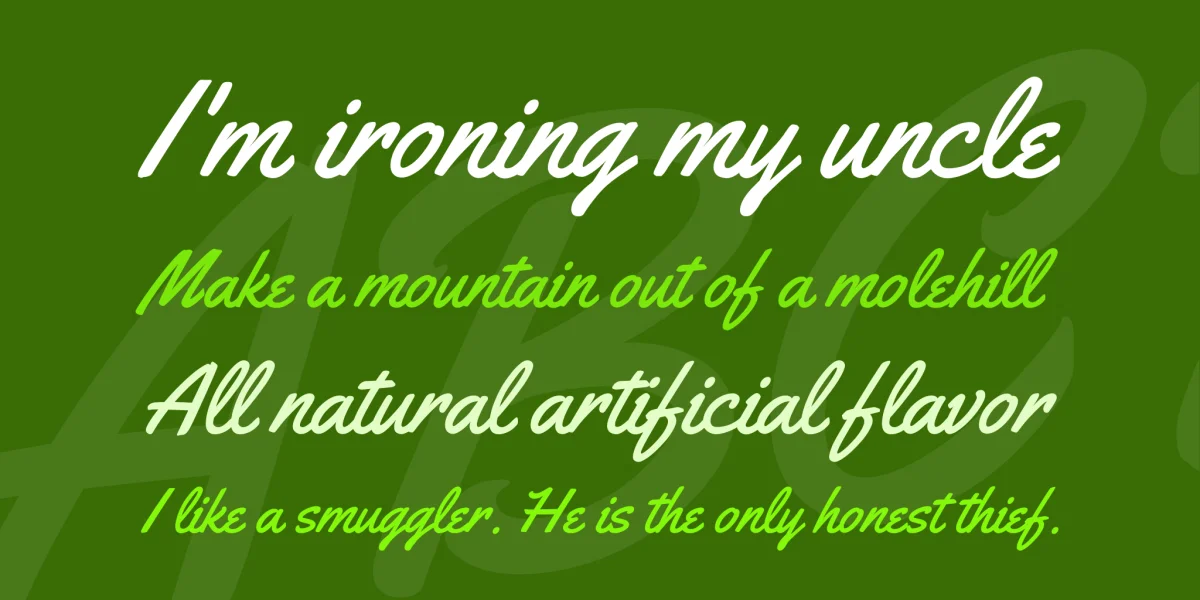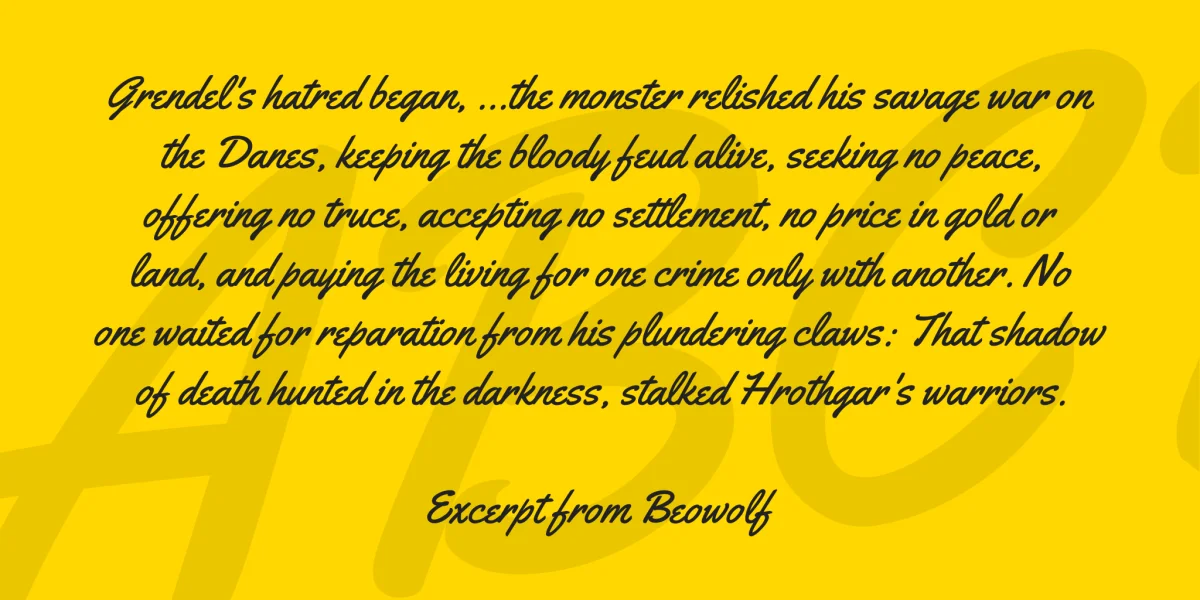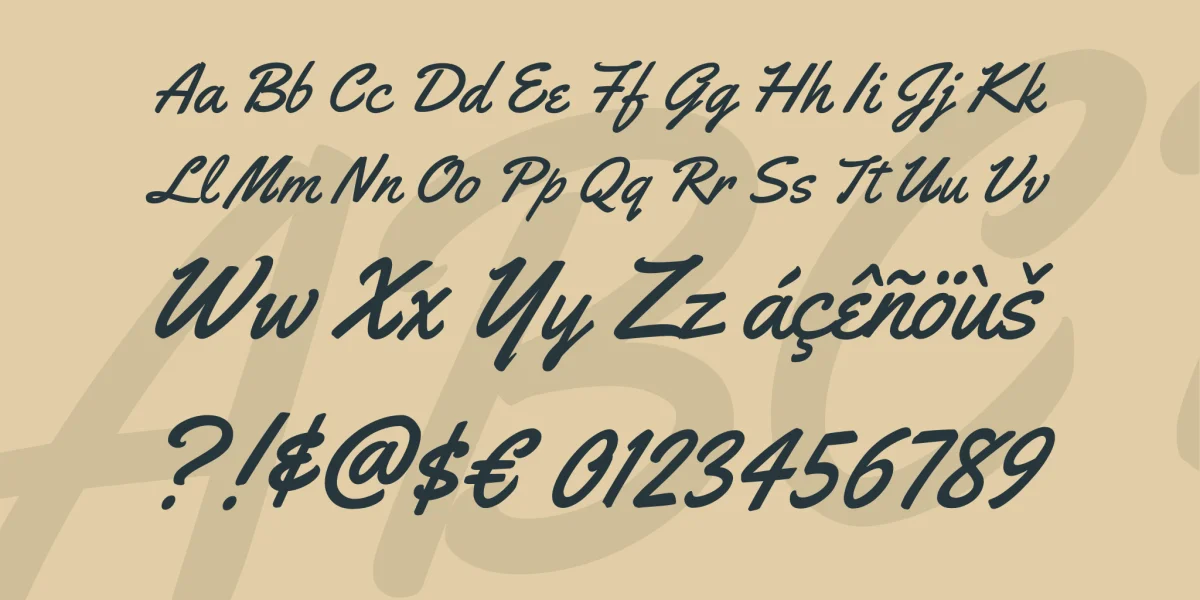
Yellowtail is an old school flavored flat brush script typeface of medium weight. It's mix of connecting and non-connecting letterforms lend to its unique look and legibility. Yellowtail nods to classic 1930's typestyles like Gillies Gothic & Kaufmann, yet has the loose visual cadence of sign painter scripts.